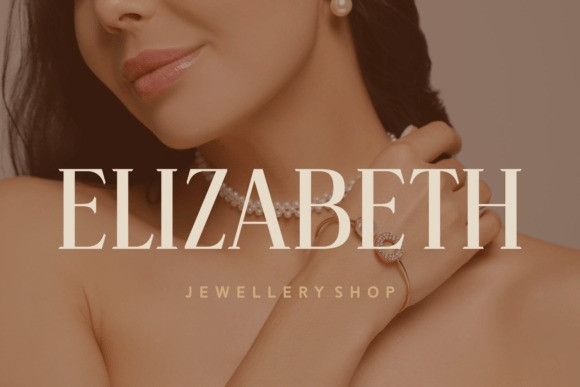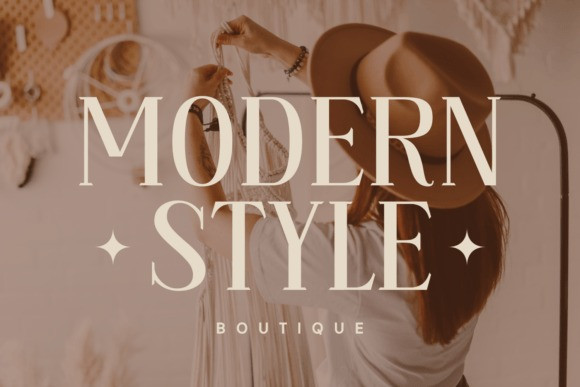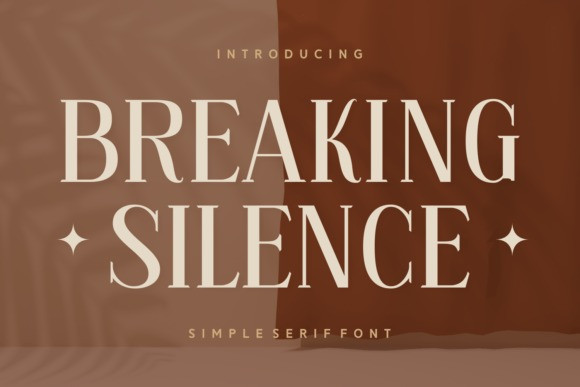
Breaking Silence Font
Breaking Silence Font a distinct Serif Font that seamlessly marries elegance with modernity. Perfect for transforming your photographs, its unique accents enhance visual narratives with flair. Moreover, it intimates authenticity, making it ideal for apparel branding. Its understated sophistication shines on book covers and contributes to a readable, immersive experience inside the pages. ‘Breaking Silence’ is equally impressive for branding applications, with its clean lines leaving a memorable impression. In the realm of stationery, it adds a trendy touch to cards, transforming standard greetings into bespoke messages. Experienced in gracing logotypes and magazine covers, it brings an air of smooth sophistication. ‘Breaking Silence’ also finds its place on packaging and quotes, enhancing their appeal. Top off your T-shirt designs with this font, and you’ll be on the pulse of Typography trends with ‘Breaking Silence’.